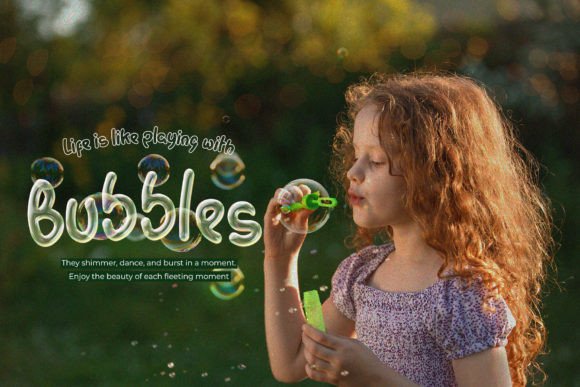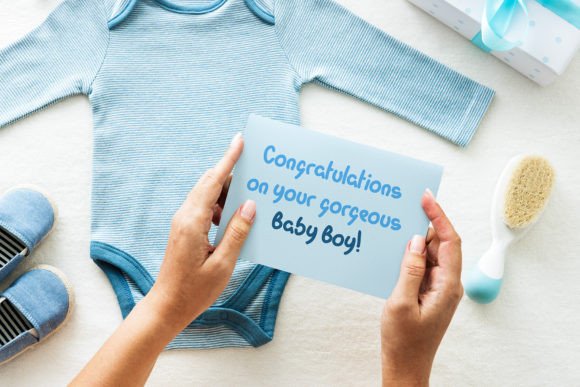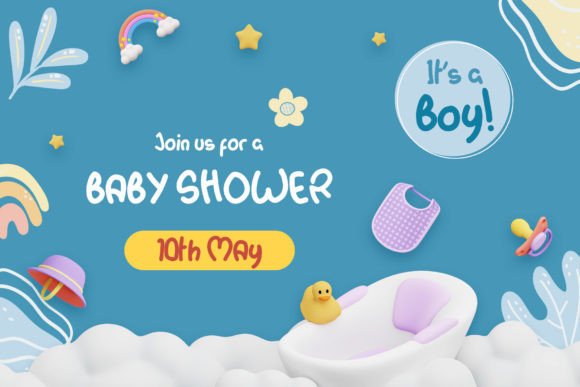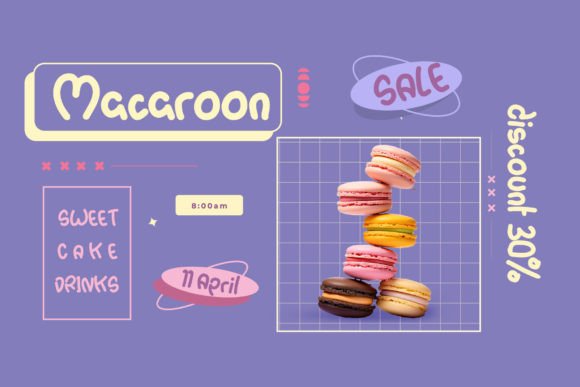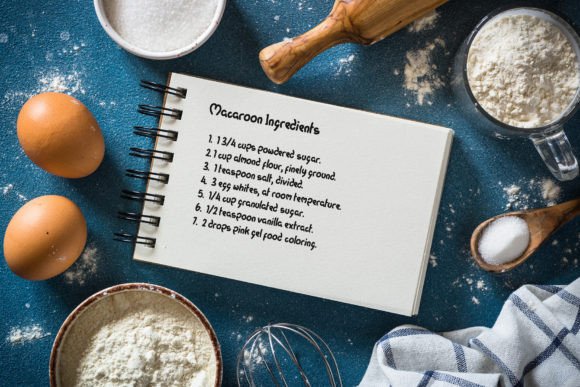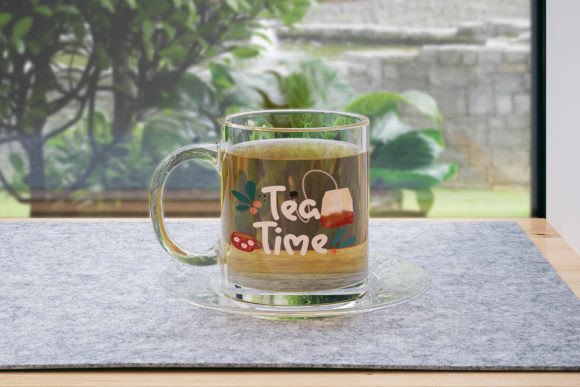
Discover the Whimsy of Bubble Tube Font
Remember that magical moment when you stumbled upon the perfect font for a project? You know, that instant when everything falls into place, and your design starts to radiate with personality? For designers, finding the perfect font can be a game-changer, and today, we’re excited to introduce you to the delightful Bubble Tube Font.
This charming handwritten sans-serif font is designed to capture the essence of whimsy and playfulness, making it a perfect choice for projects seeking a touch of youthful innocence and creativity. With its rounded, bubbly characters, the Bubble Tube Font is sure to add a personal touch to your designs, making them stand out from the crowd.
Whether you’re working on a children’s book, a branding project, or a social media campaign, the Bubble Tube Font is a valuable addition to any designer’s toolkit. Its versatility and charm make it an ideal choice for designers looking to add a touch of personality to their work.
Bubble Tube Font Key Features
- Font Style: Unique, futuristic, and playful bubble-like design with rounded shapes and smooth connections.
Bubble Tube Font Review
Overall, I’d say the Bubble Tube Font is a unique and eye-catching choice, but it comes with some caveats.
- Its futuristic vibe is perfect for tech or sci-fi-related designs.
- The bold lines and circular shapes create a visually appealing contrast.
- The font is highly customizable, allowing users to adjust size, color, and style to suit their needs.
- The font’s high-contrast design can be difficult to read in certain contexts, such as small text or against busy backgrounds.
- It may not be the best choice for formal or professional designs, as it can come across as gimmicky or attention-seeking.
- The font’s customization options can also make it overwhelming to use, especially for beginners.
Overall, I’d recommend the Bubble Tube Font for projects that require a bold, futuristic look. However, be aware of its limitations and use it judiciously to avoid overwhelming your audience. With some careful consideration and design finesse, this font can be a real showstopper.
Bubble Tube Font: A Practical Application Guide
The Bubble Tube font is commonly used in:
– Infographics
– Presentation slides
– Blog posts
– Advertisements
– Packaging designs
– Branding materials
– Educational materials